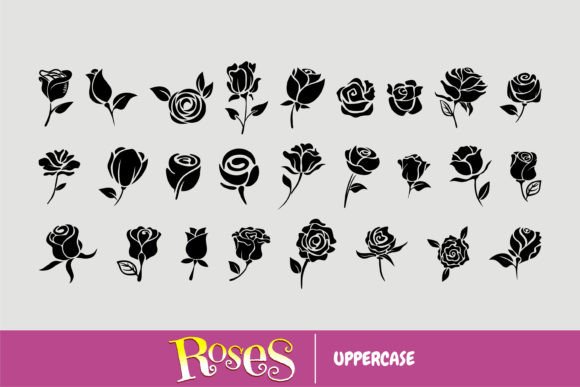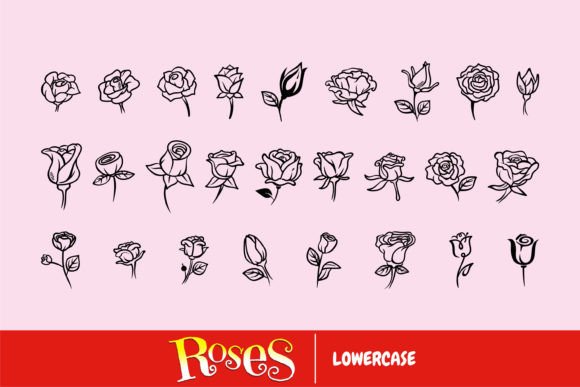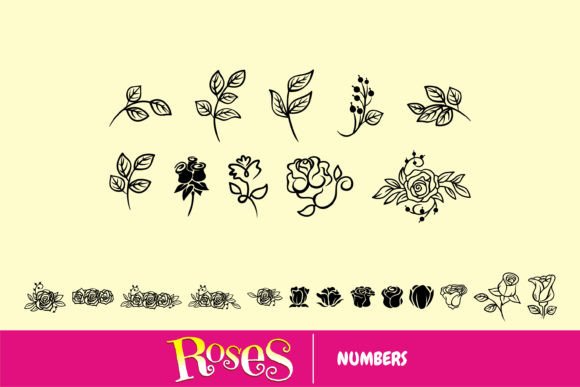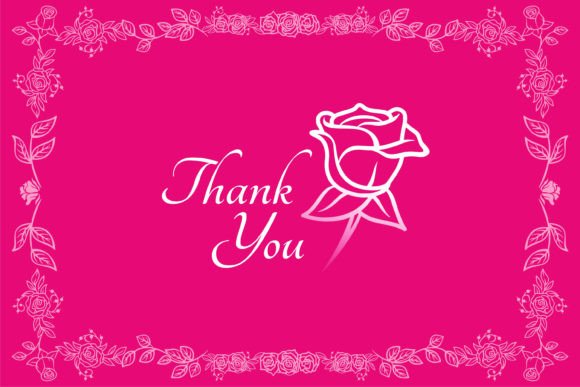
Roses Font
About Roses Font
Roses is a useful and delicately designed dingbats font. Add it confidently to your projects, and you will love the results.